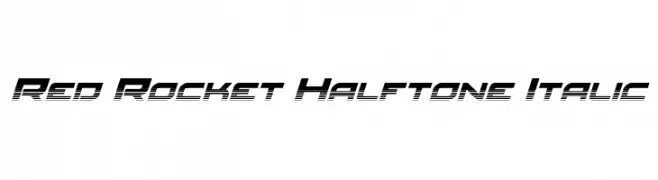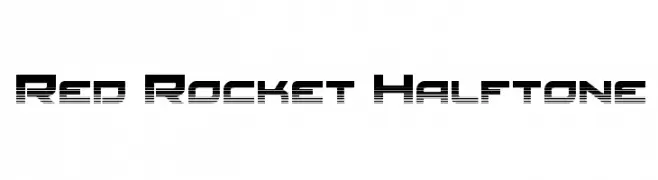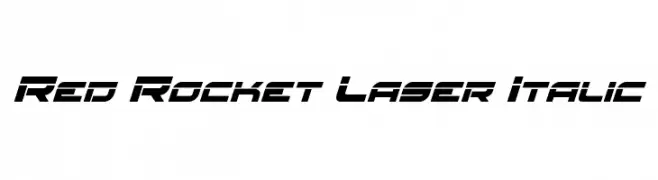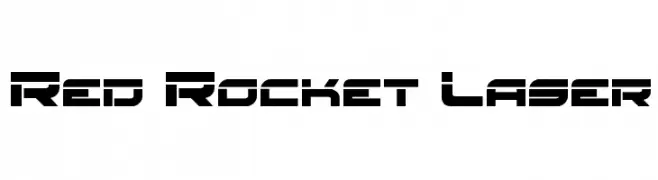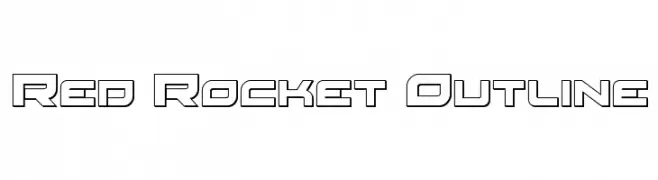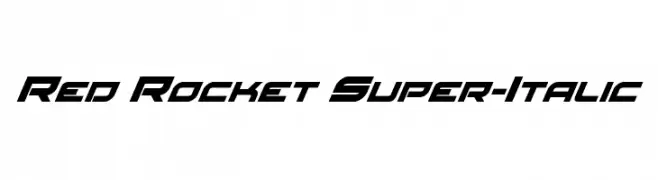
( Iconian Fonts - Daniel Zadorozny - www.iconian.com )
A bold, futuristic font with a halftone effect and geometric design.
( Iconian Fonts - Daniel Zadorozny - www.iconian.com )
A dynamic, italicized font with a halftone effect, perfect for modern and energetic designs.
( Iconian Fonts - Daniel Zadorozny - www.iconian.com )
A bold, futuristic font with sharp angles and a geometric structure.
( Iconian Fonts - Daniel Zadorozny - www.iconian.com )
A bold, italic, futuristic font with sharp, angular edges and a dynamic style.
( Iconian Fonts - Daniel Zadorozny - www.iconian.com )
A bold, geometric outline font with a futuristic and modern style.
( Iconian Fonts - Daniel Zadorozny - www.iconian.com )
A bold, angular, semi-italic font with a futuristic and dynamic style.
( Iconian Fonts - Daniel Zadorozny - www.iconian.com )
A bold, italic font with a futuristic and dynamic design.